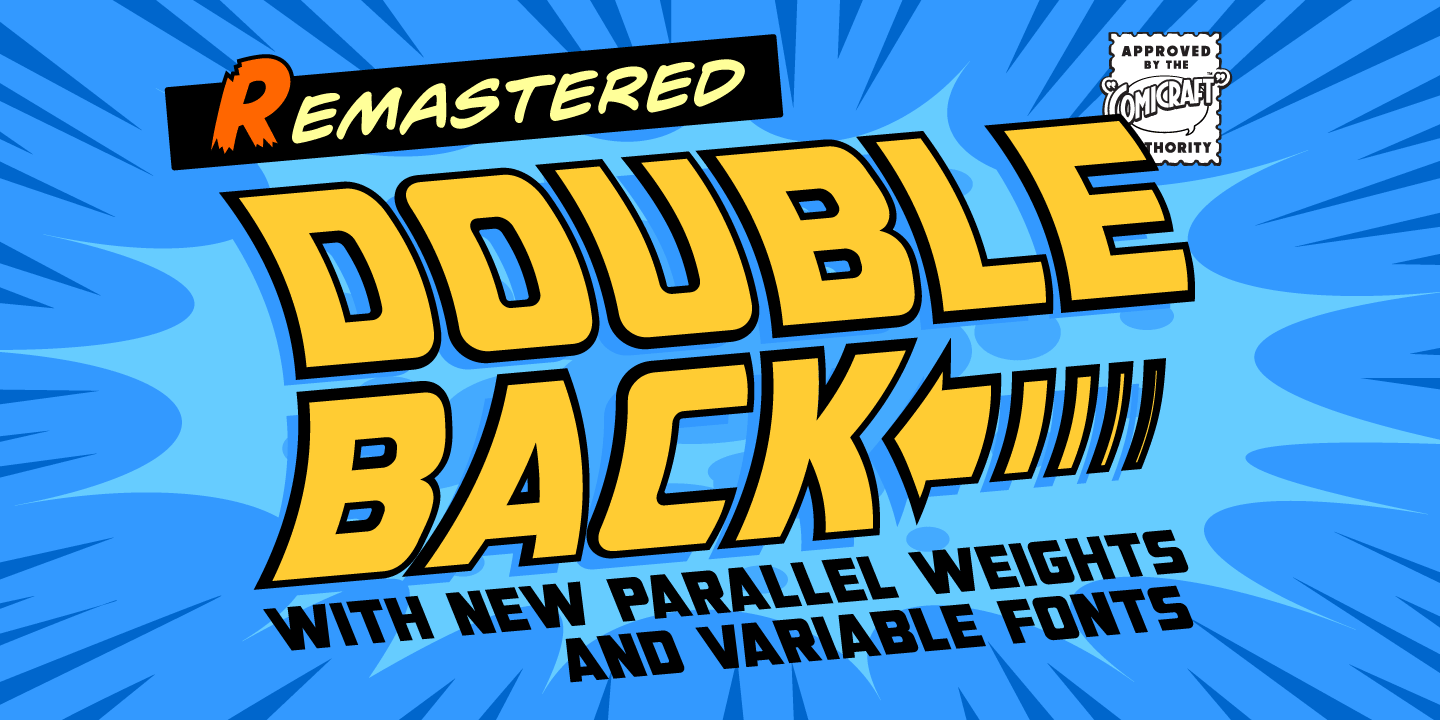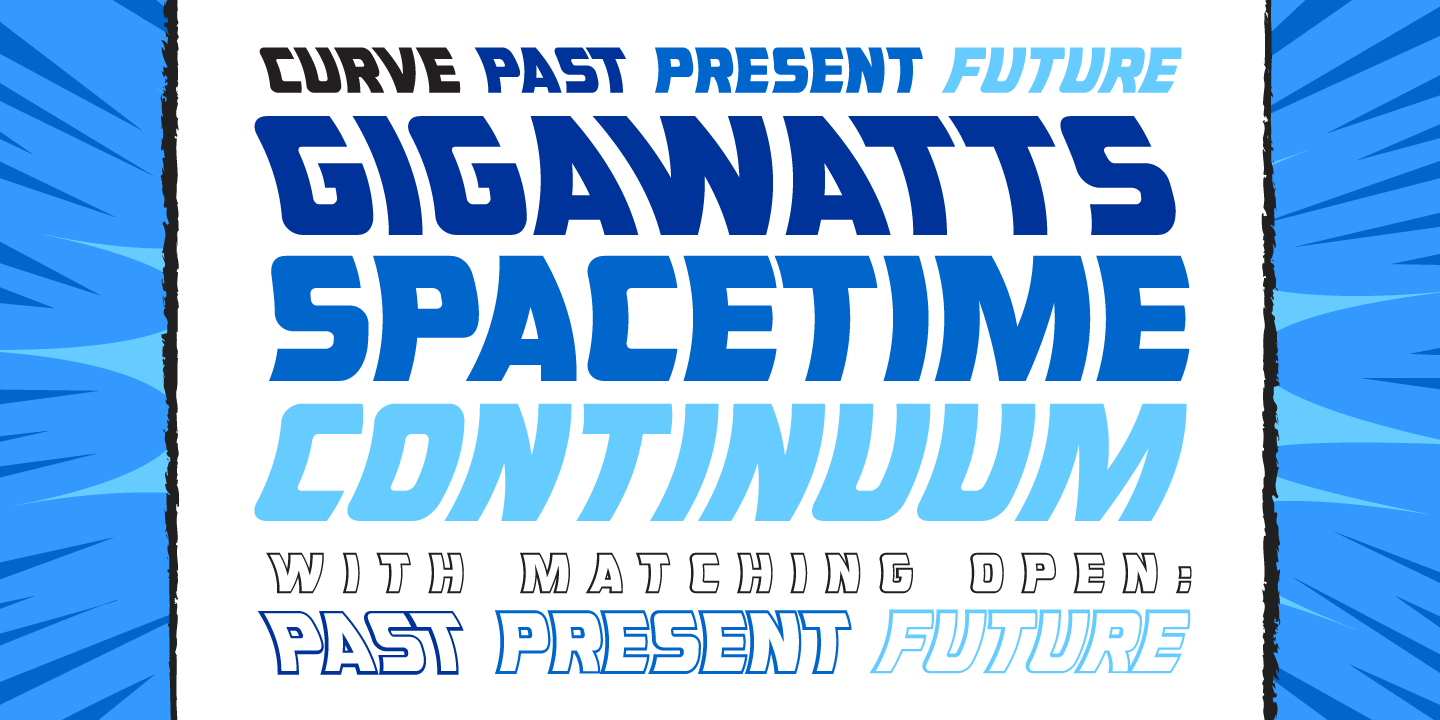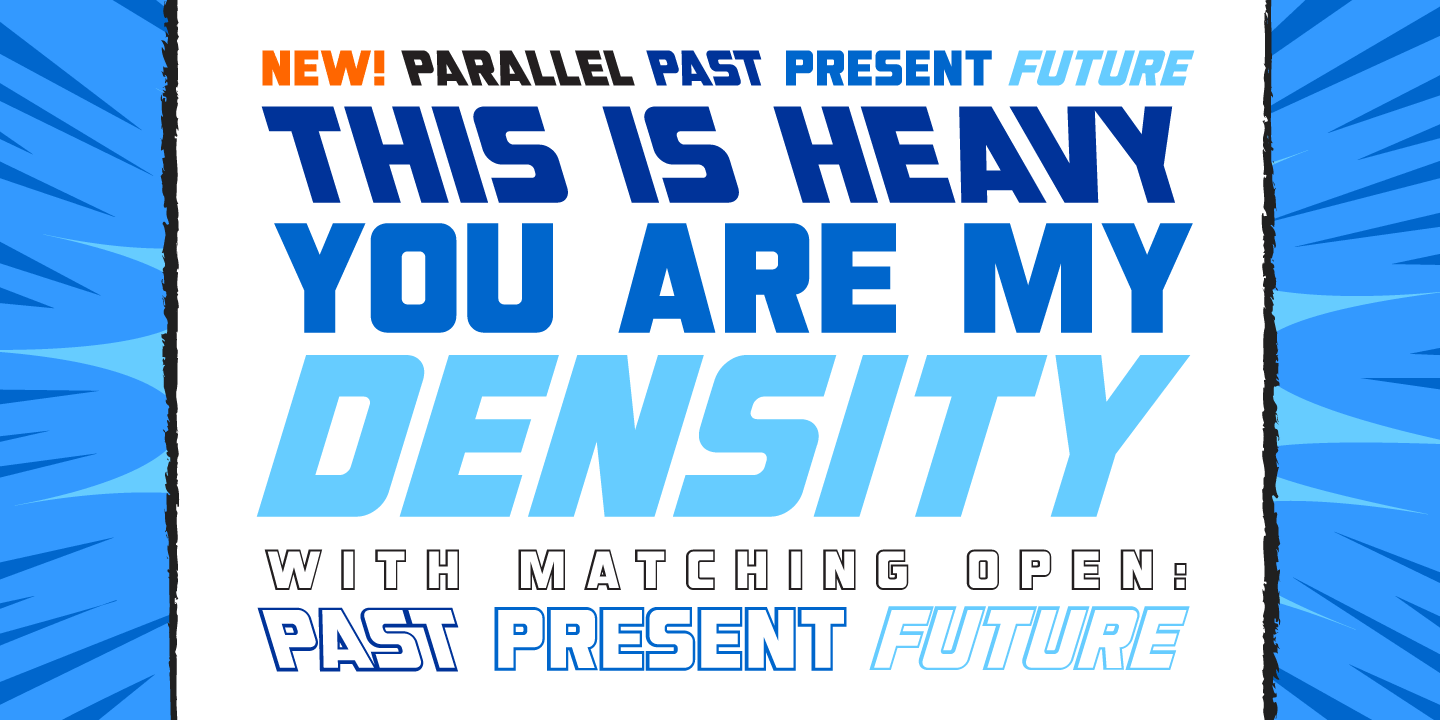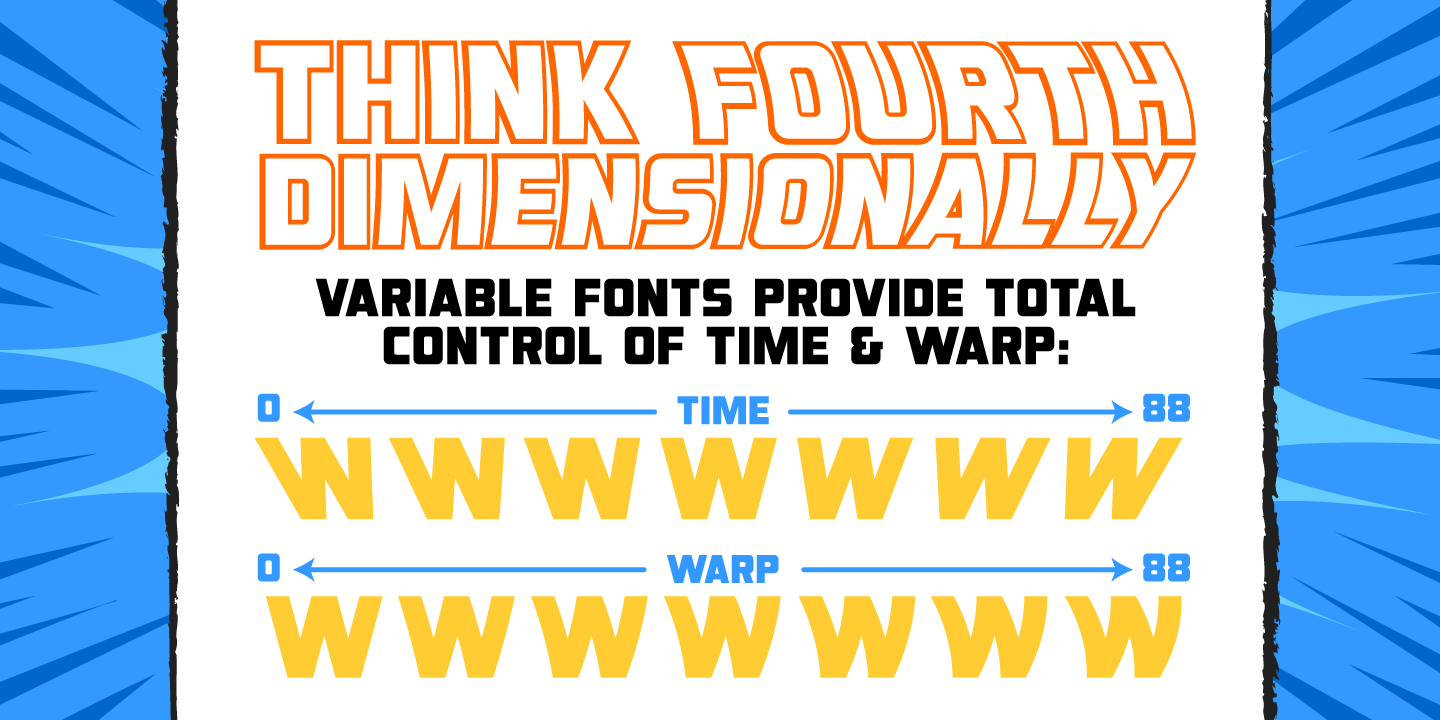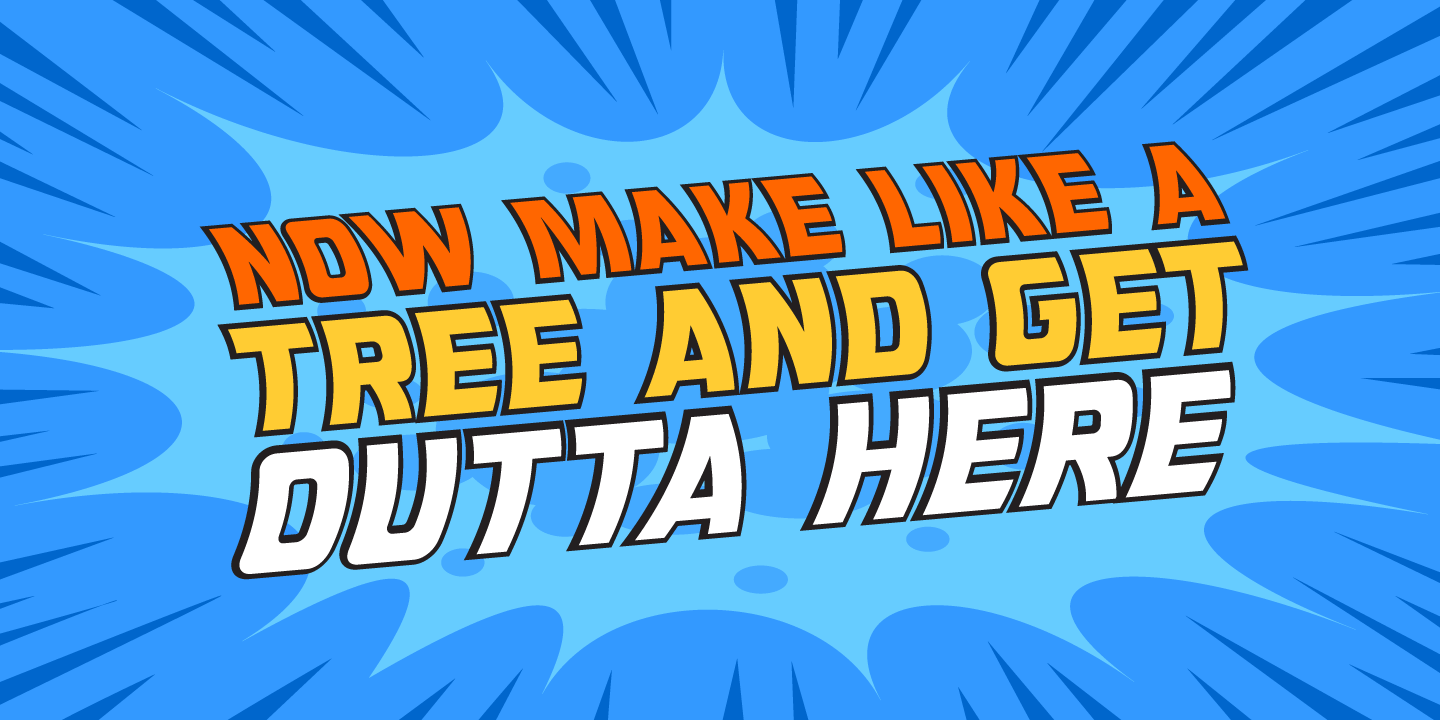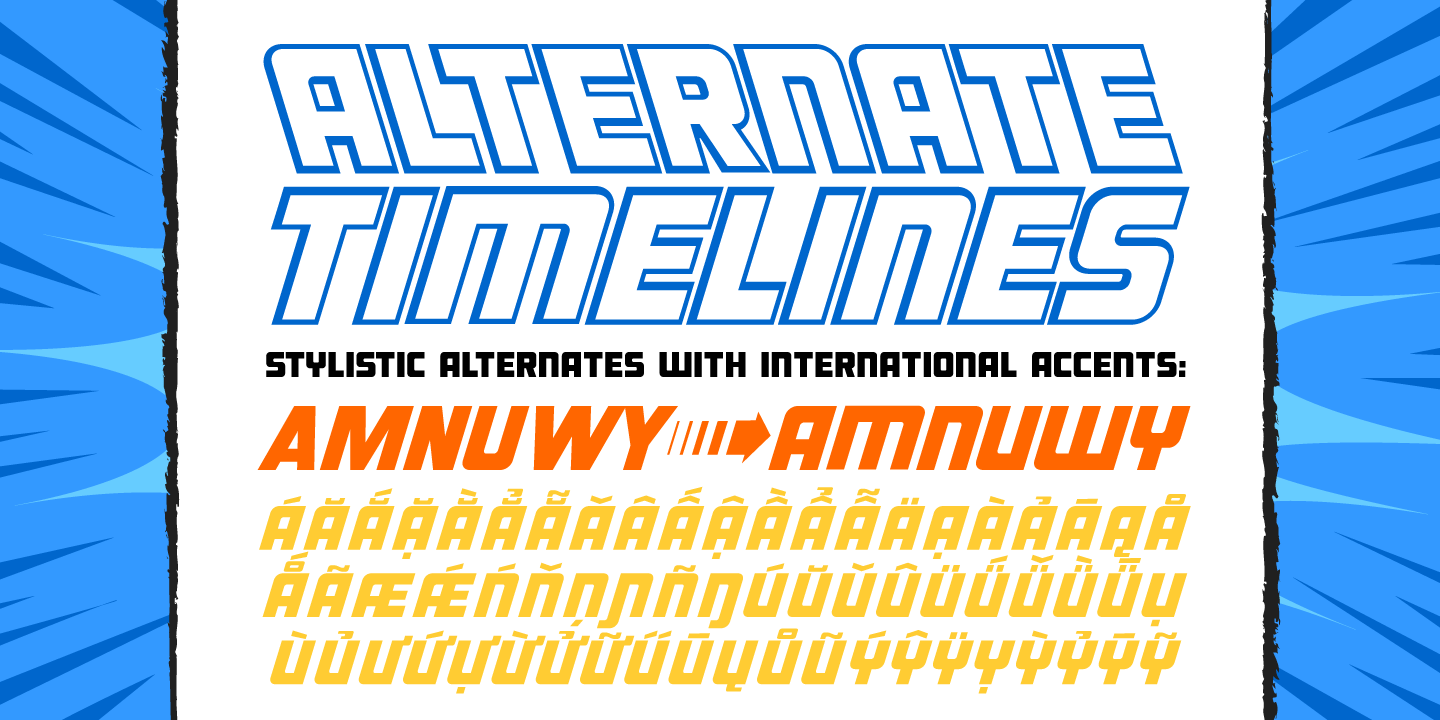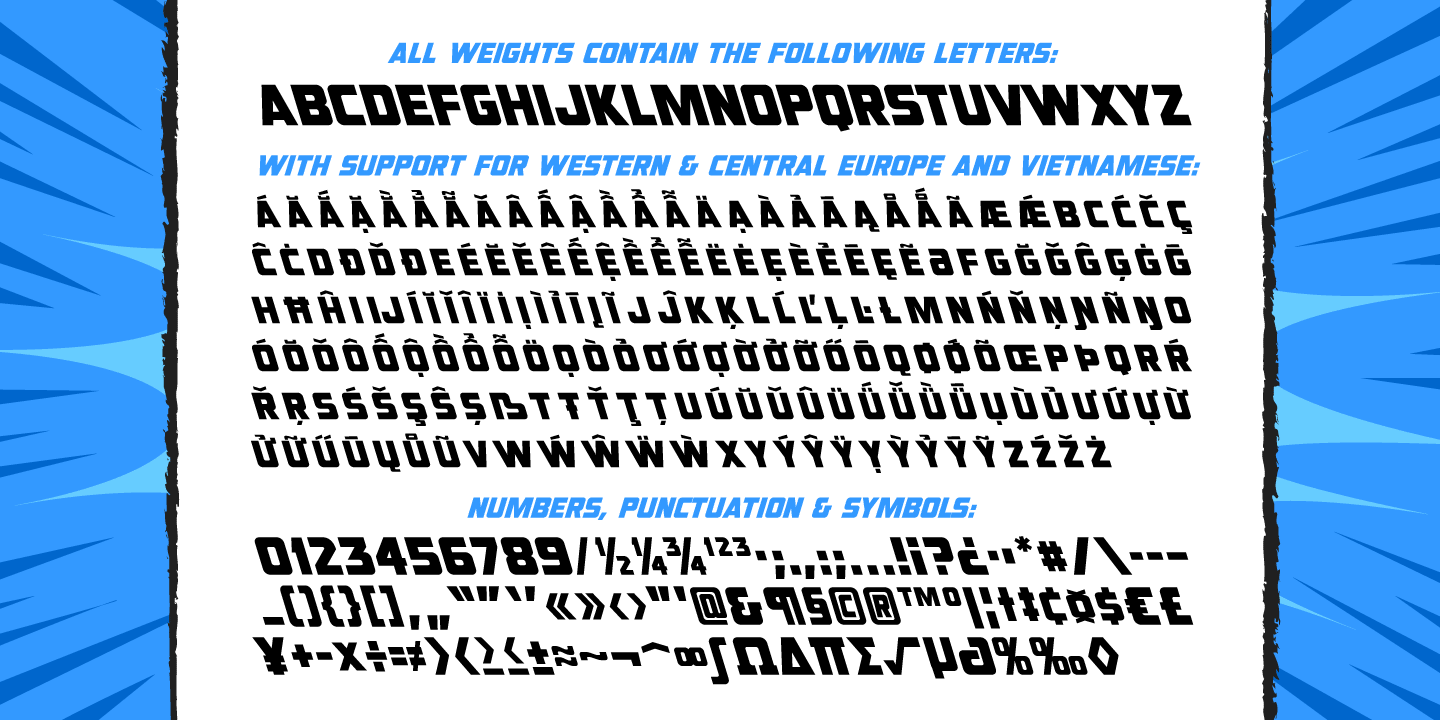
Double Back
Originally created by Comicraft for the official BACK TO THE FUTURE fan club, Remastered DOUBLEBACK has been rebuilt from the ground up, with a new vertical “Curve” weight, six new “Parallel” weights, stylistic alternate letters AMNUWY, and language support for Western & Central Europe and Vietnamese.
And if that weren't enough, we've traveled into the future and brought back Solid & Open Variable Fonts which provide precise control of Time and Warp!